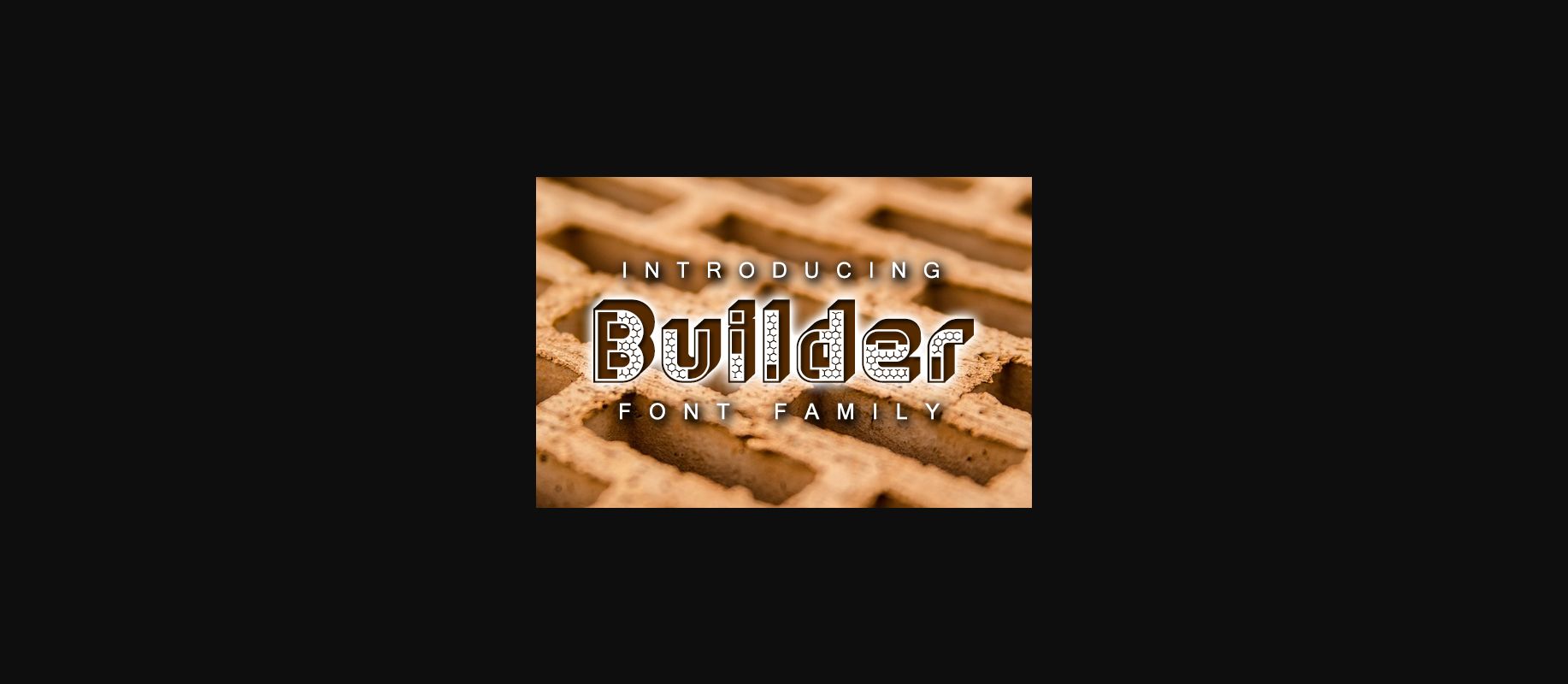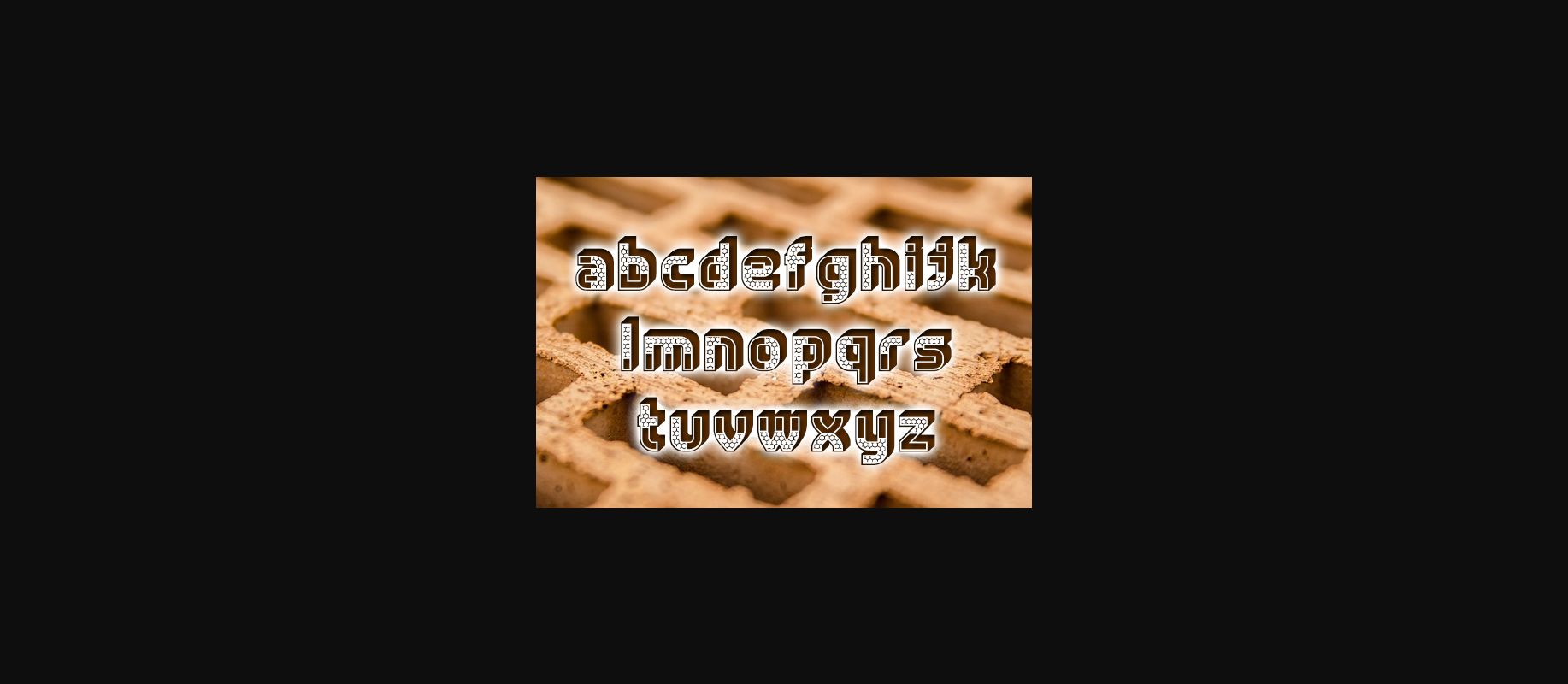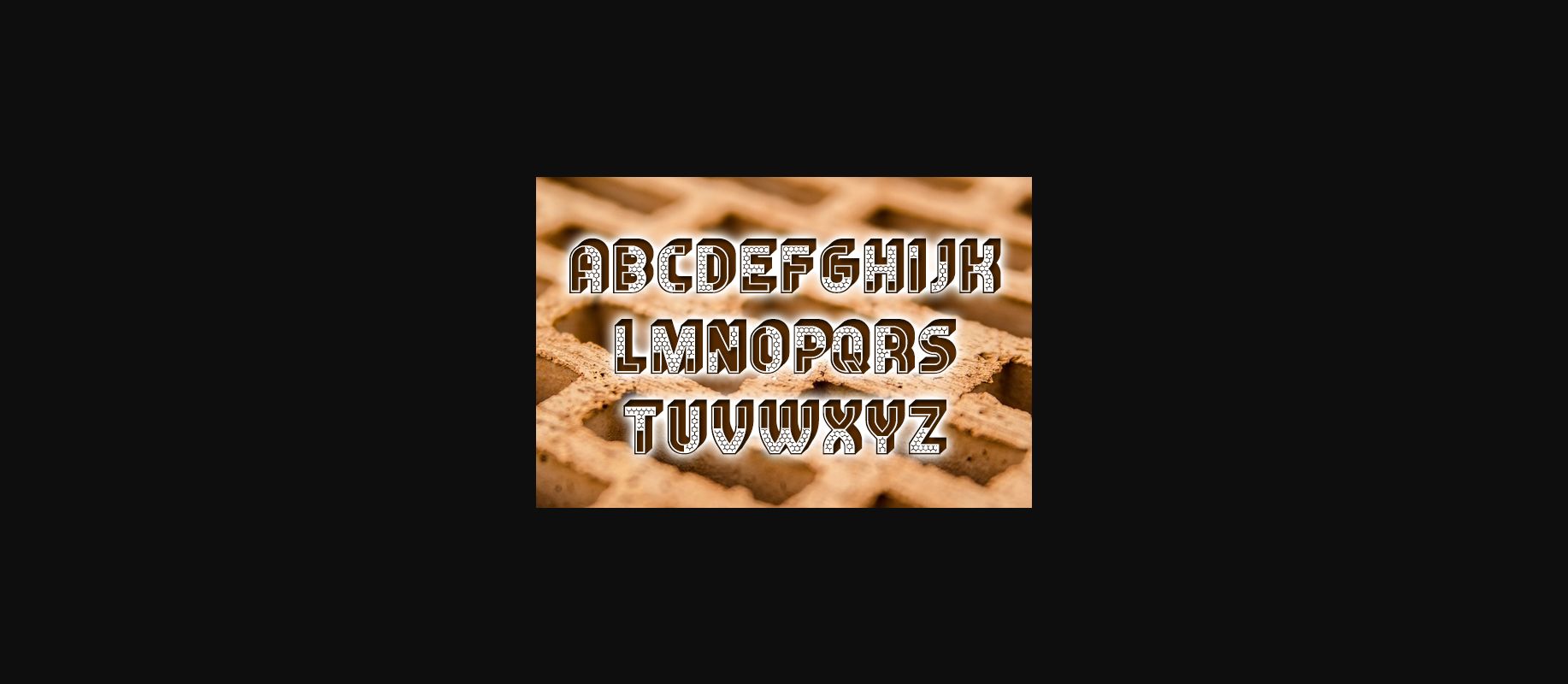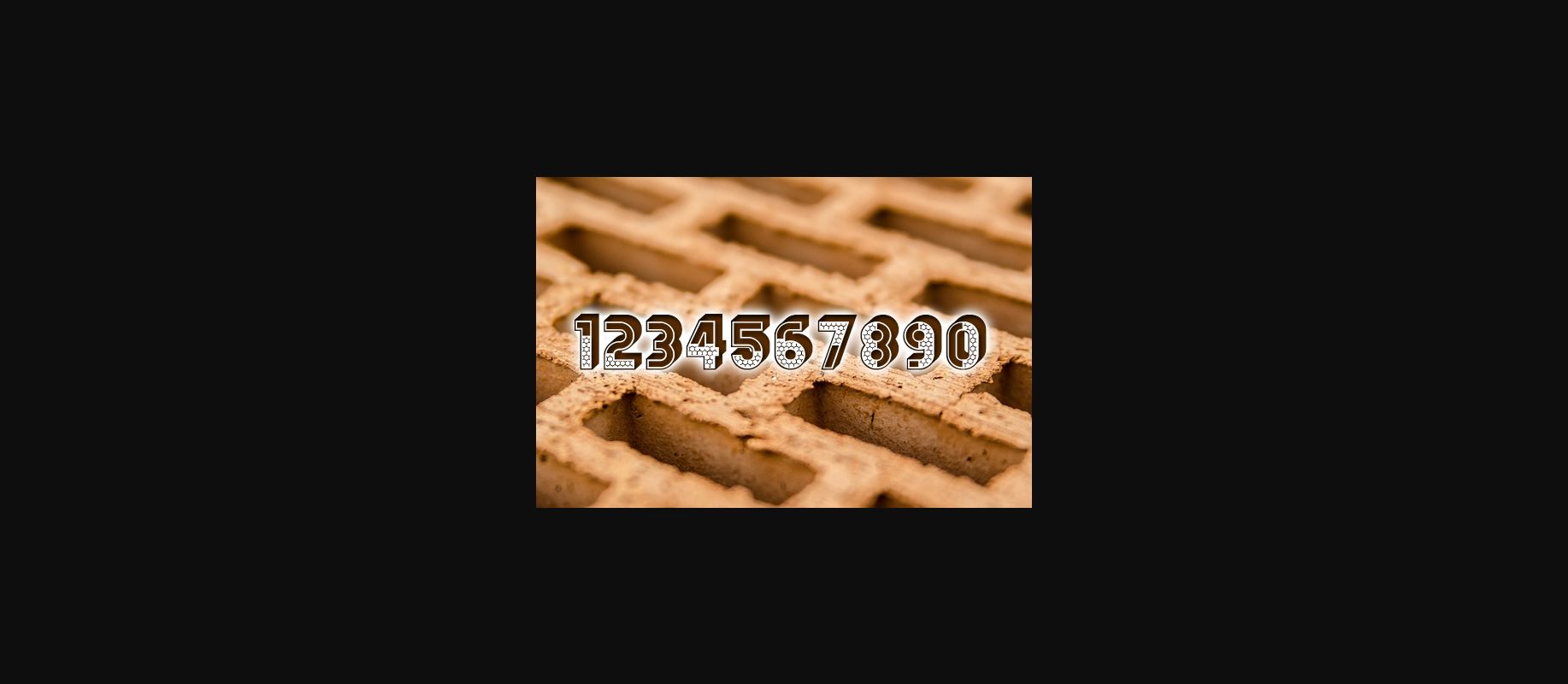
Builder Font
About Builder Font
Builder is a bold and unique decorative font. Add it to your creative ideas and notice how it will make them stand out!